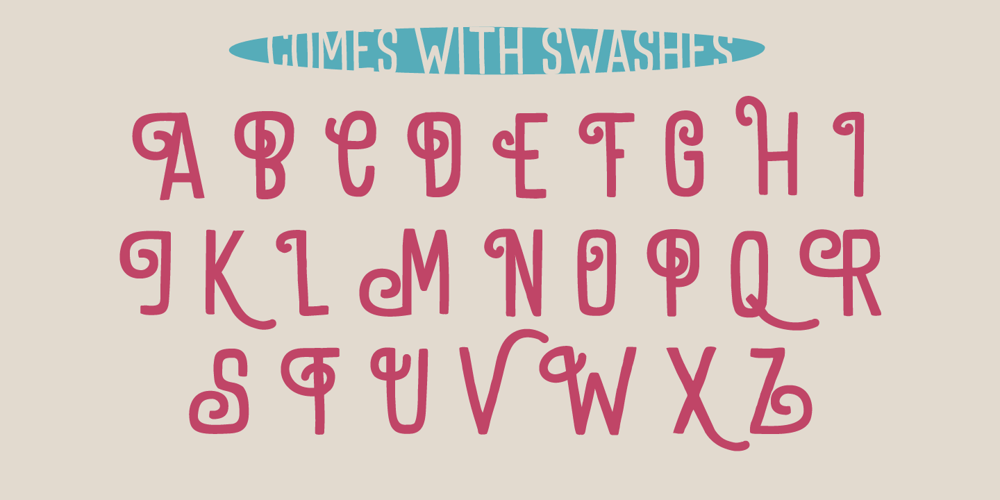
Goodie Bag
Goodie Bag font
Goodie Bag Font Family was designed by David Kerkhoff and published by Hanoded. Goodie Bag contains 4 styles and family package options. The correct spelling, apparently, is Goody Bag. But I like it with an ‘ie’ ending. Goodie bag is a 4 member display font family. Use it for your book designs, magazines or websites – maybe even for the goodie bag you want to hand out!